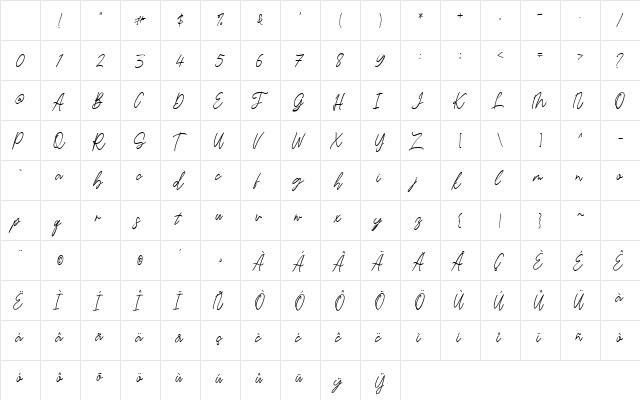
Complete Bambi Handwritten Regular glyph index. Displaying only characters natively supported by Bambi Handwritten Regular font.
Bambi Handwritten flows with the natural rhythm of handwritten lettering, making it ideal for designs that call for warmth and personal expression.
Font Pairing: Combine Bambi Handwritten with a simple geometric sans for maximum contrast - the tension between flowing curves and clean structure is a classic typographic pairing.
Pro Tip: Use Bambi Handwritten for short runs of text - names, titles, or taglines. Extended body copy in script faces tires the eye quickly.